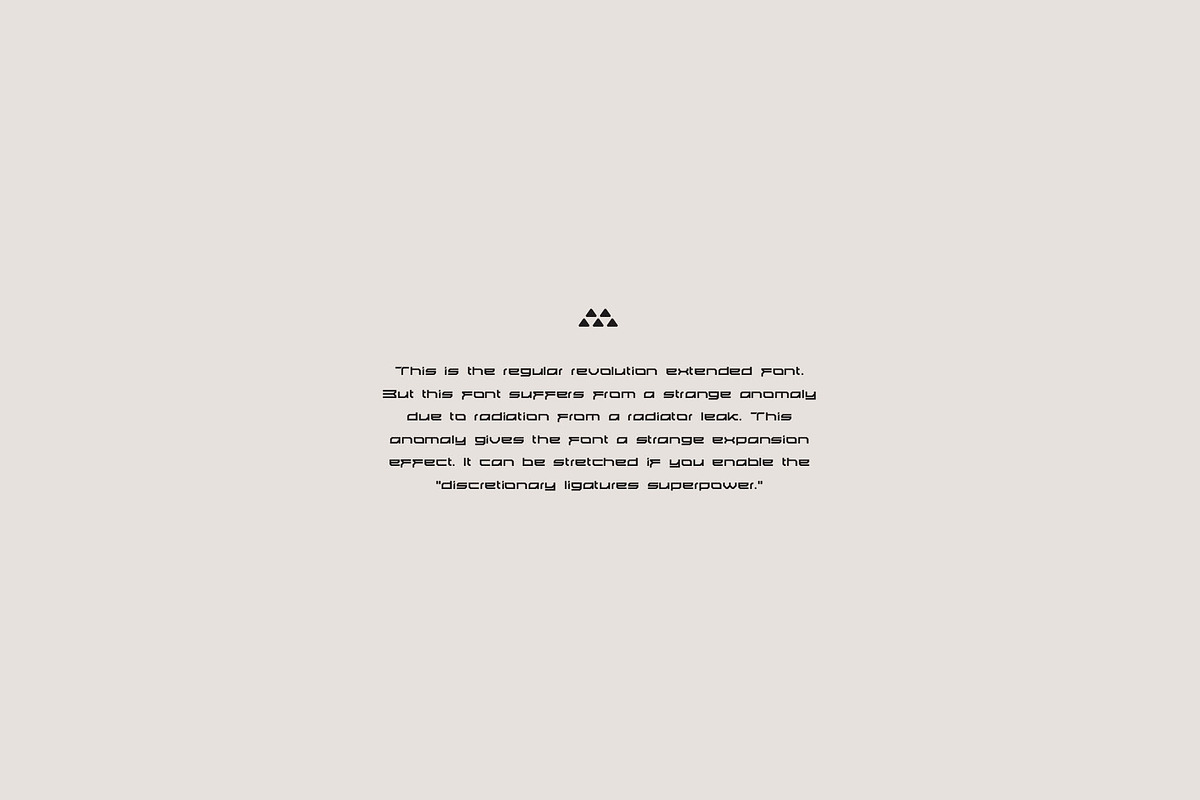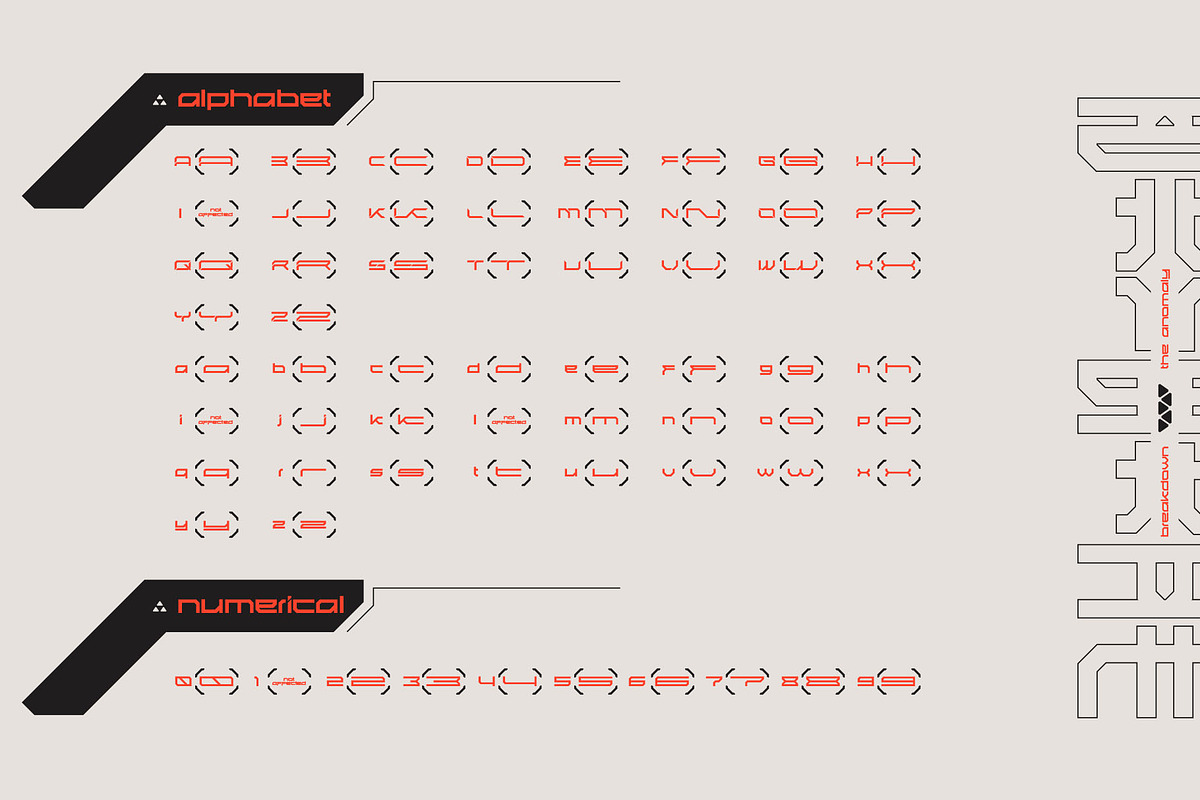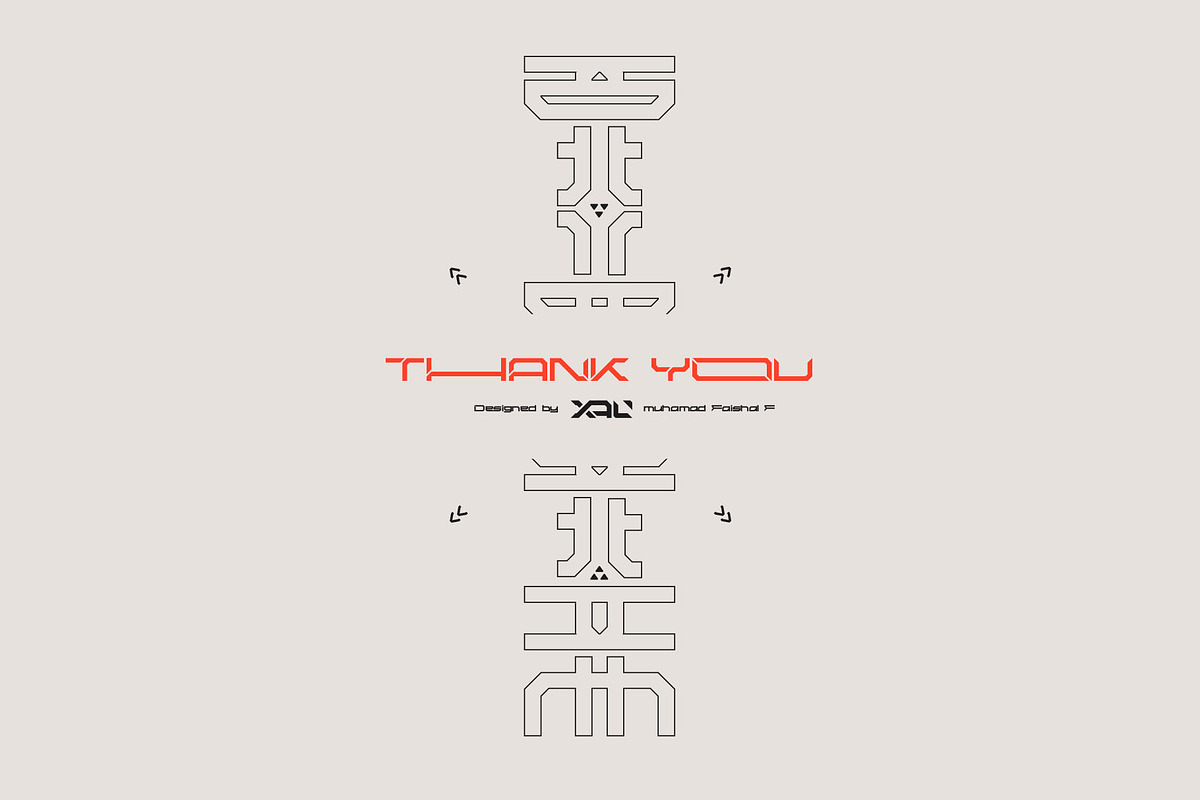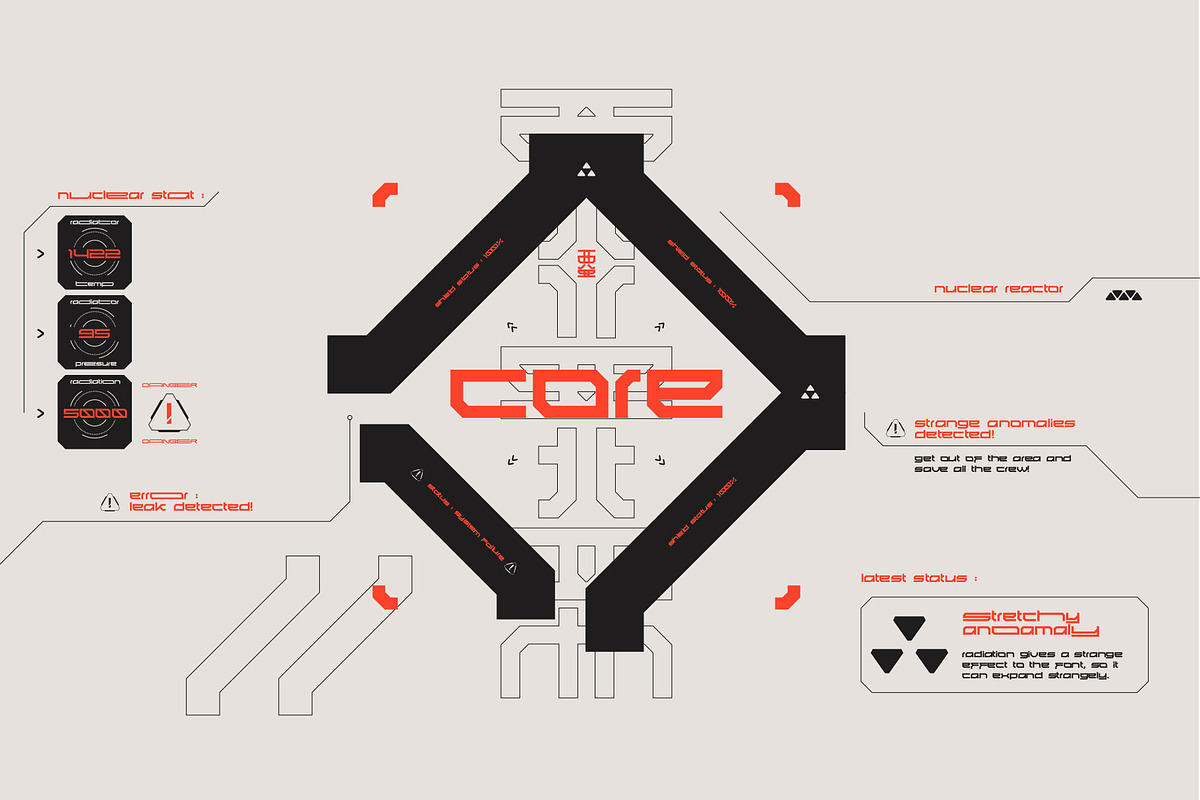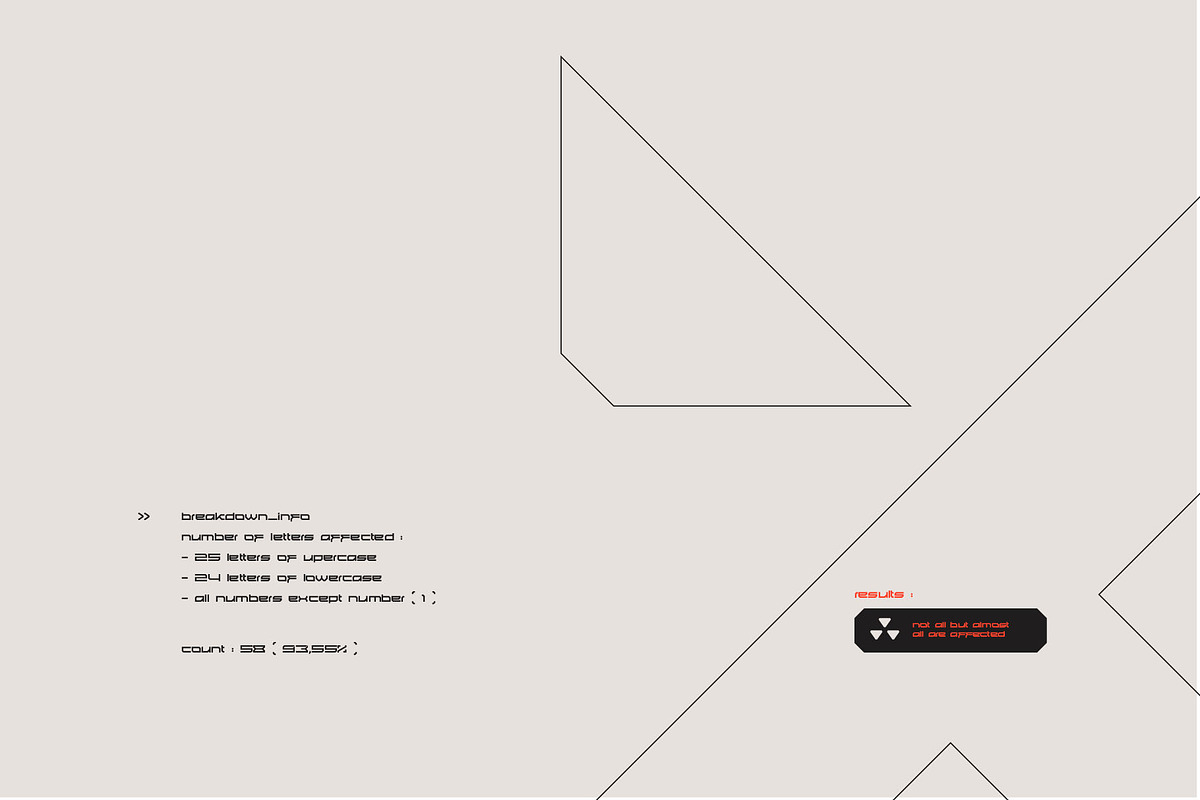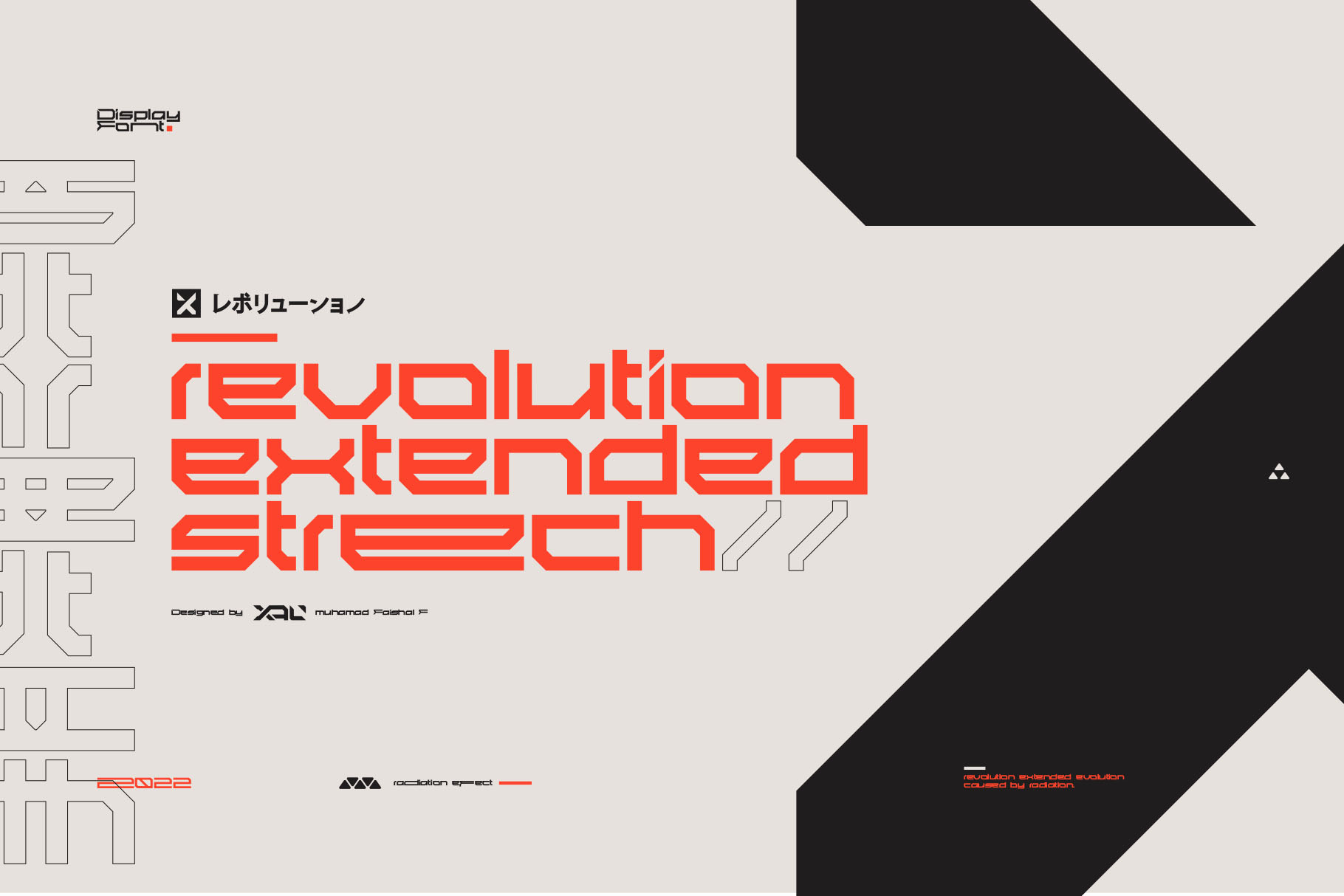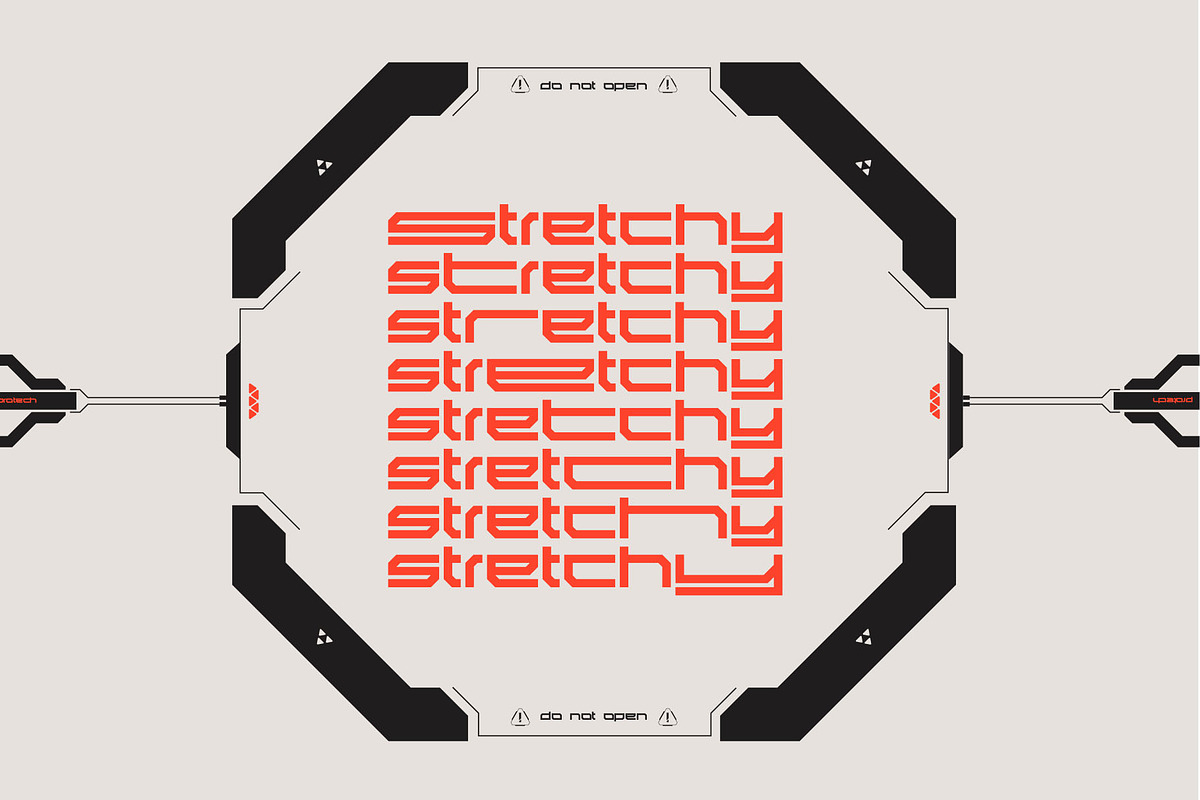
Revolution Extended font
Revolution Extended Stretch is a cool and futuristic display font that “suffers” from a strange anomaly due to radiation from a radiator leak. This anomaly gives the font a strange expansion effect. It can be stretched if you enable the “discretionary ligatures superpower.”